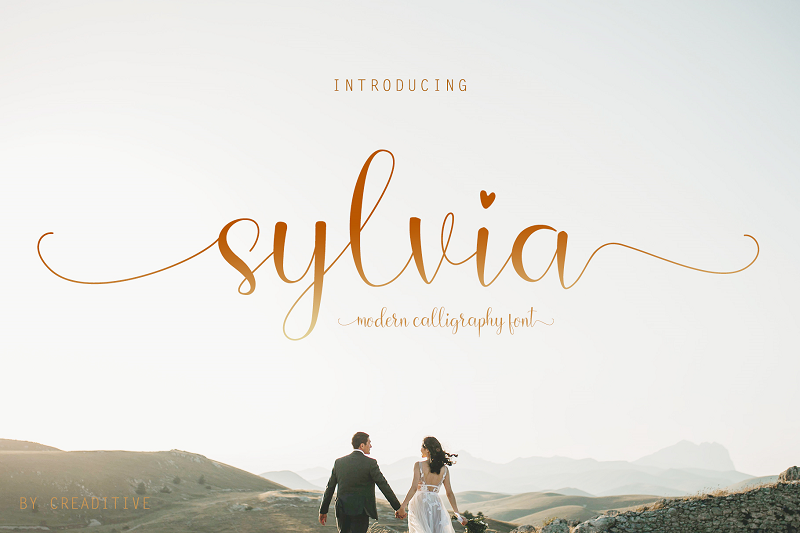
Sylvia Font is perfect for poetry publications, literary magazine layouts, creative writing workshops, romantic novel covers, intimate journal designs, artistic portfolio materials, elegant wedding invitations, personal memoir projects, sophisticated greeting cards, and thoughtfully expressive marketing communications.
Sylvia Font is exciting because it captures the profound depth and artistic sensitivity of literary expression with its gracefully contemplative letterforms that seem penned by poets and carry the emotional resonance of carefully chosen words that touch the human soul. Its artistically thoughtful character design reflects both the intellectual rigor of serious literature and the emotional vulnerability that makes great writing unforgettable, making it perfect for brands celebrating literary arts and creative expression.
Sylvia Font family includes thin, light, regular, medium, bold, and black weights, each with corresponding italic versions. The font family also features literary ornaments, poetic ligatures, artistic symbols, and contemplative decorative elements that enhance its expressive aesthetic and creative versatility.
This artistically expressive typeface represents the perfect fusion of literary sophistication and emotional authenticity. Sylvia Font Free Download enables designers to experience its poetic appeal before making a commercial commitment. The font's ability to convey both intellectual depth and emotional sensitivity makes it ideal for literary publishers, creative educators, and artistic brands targeting thoughtful, culturally sophisticated audiences.
Whether you're developing literary publication identities, creating creative writing materials, or designing artistic communications, Sylvia Font brings an unmistakable sense of poetic grace and literary distinction to every project. Its contemplative character and artistic heritage create powerful connections that resonate with readers, writers, and audiences appreciating literary excellence and creative expression.
The font's versatility excels in literary and artistic environments where depth and creative sophistication are valued. Its expressive character makes it particularly effective for publishing houses, literary magazines, creative writing programs, and artistic organizations seeking to establish authentic relationships with literary communities and culturally engaged audiences.
For designers working on projects requiring genuine literary appeal and artistic expression, Sylvia Font provides an exceptional solution. Its thoughtful presence and comprehensive literary elements offer the tools needed for creating truly expressive communications, while its poetic elegance ensures your designs capture the emotional depth and intellectual beauty that defines exceptional literary art and meaningful creative expression.